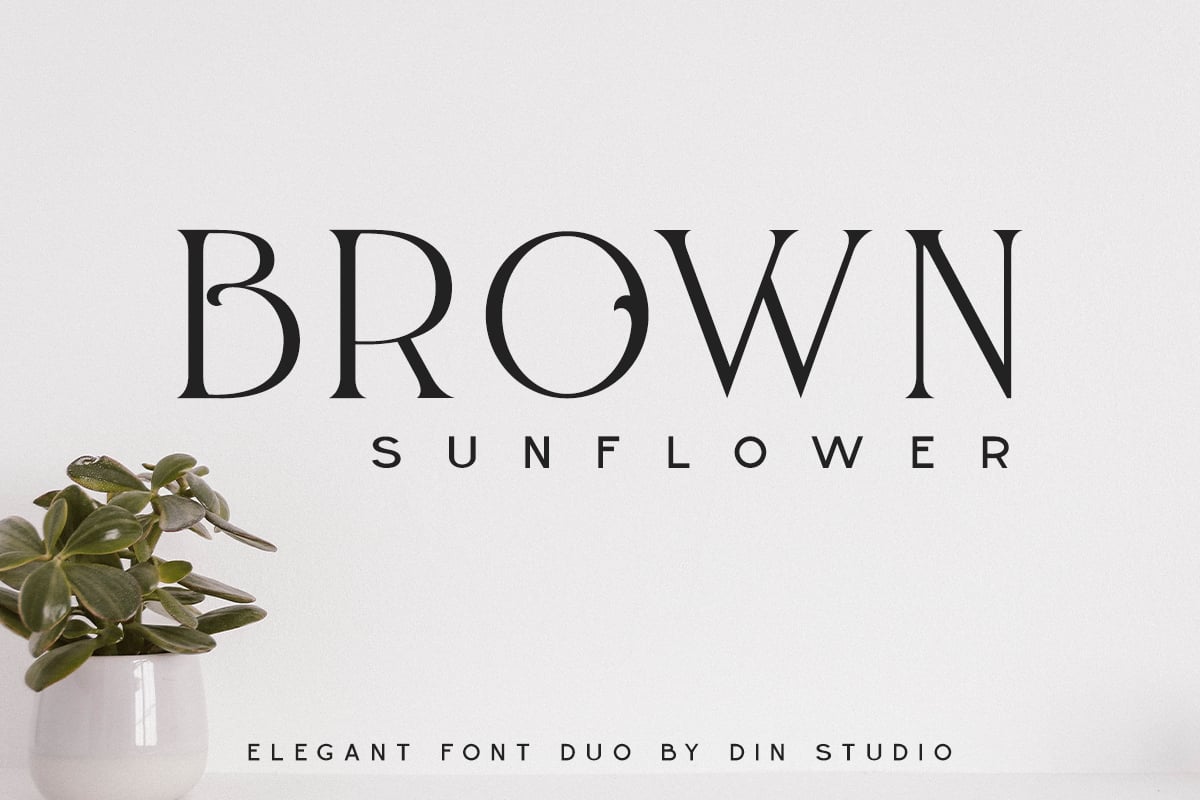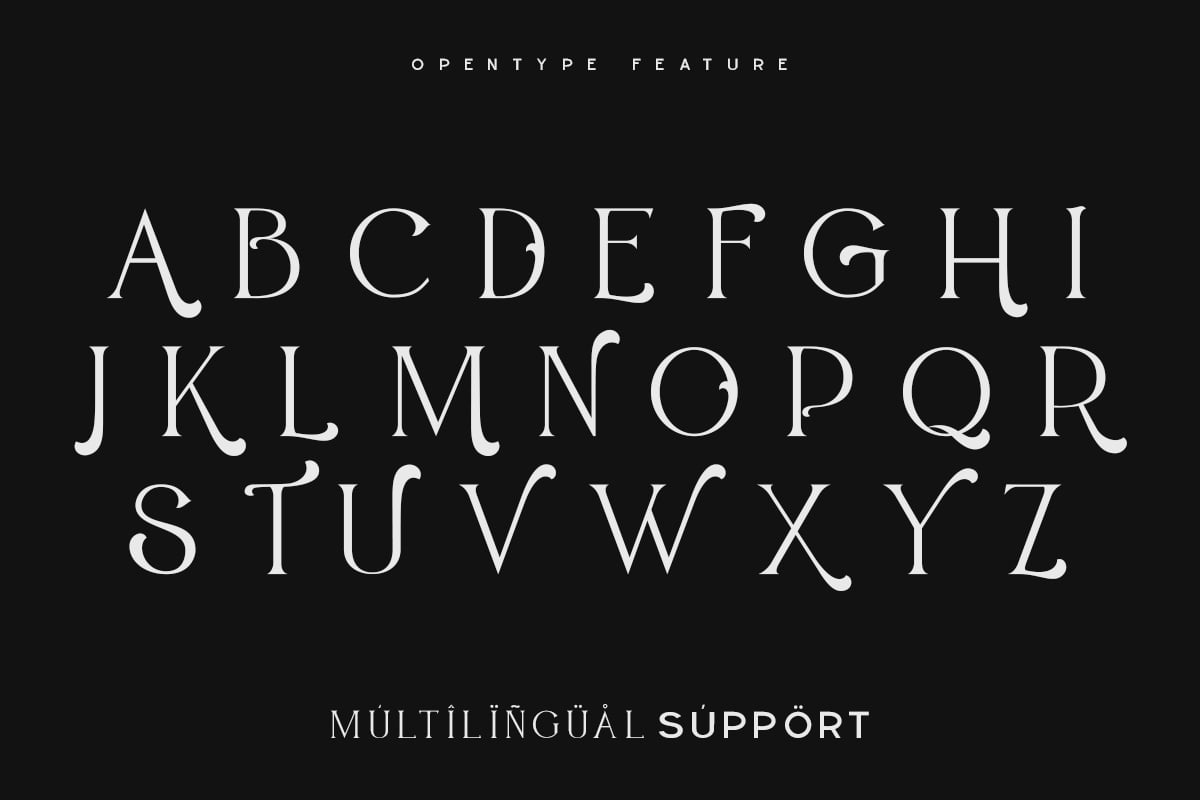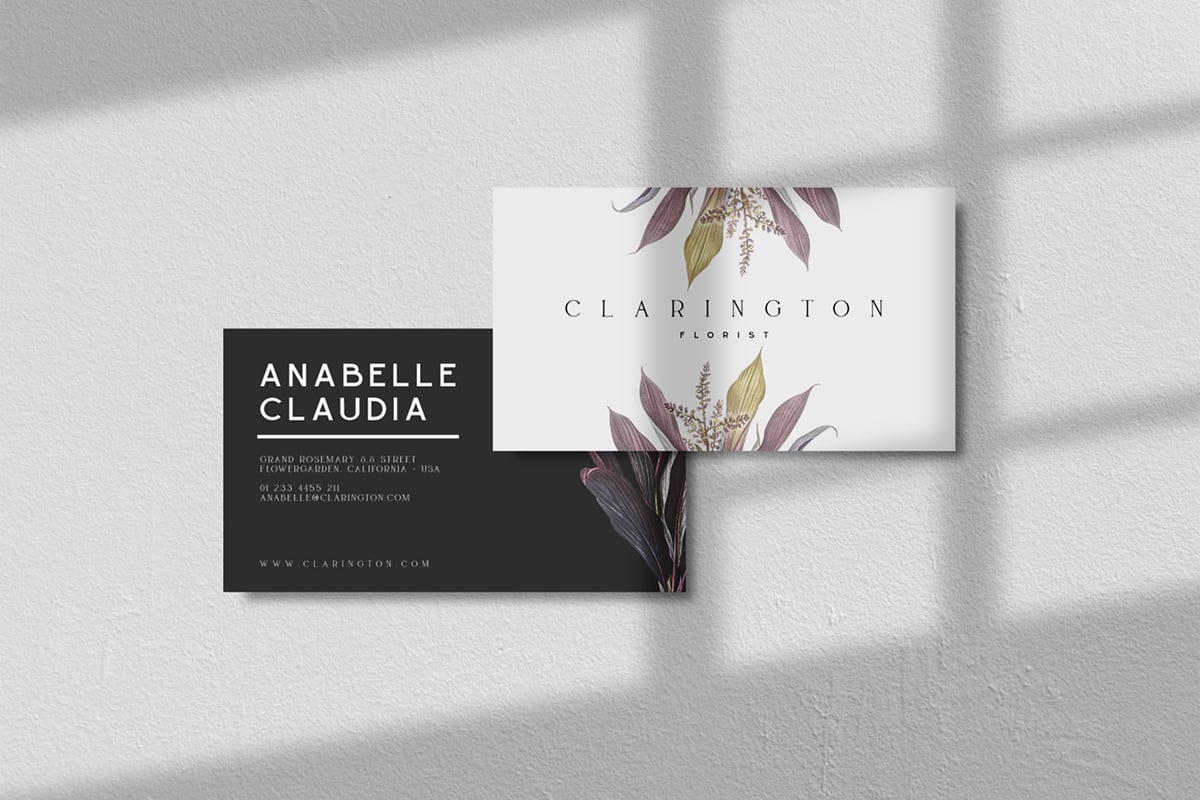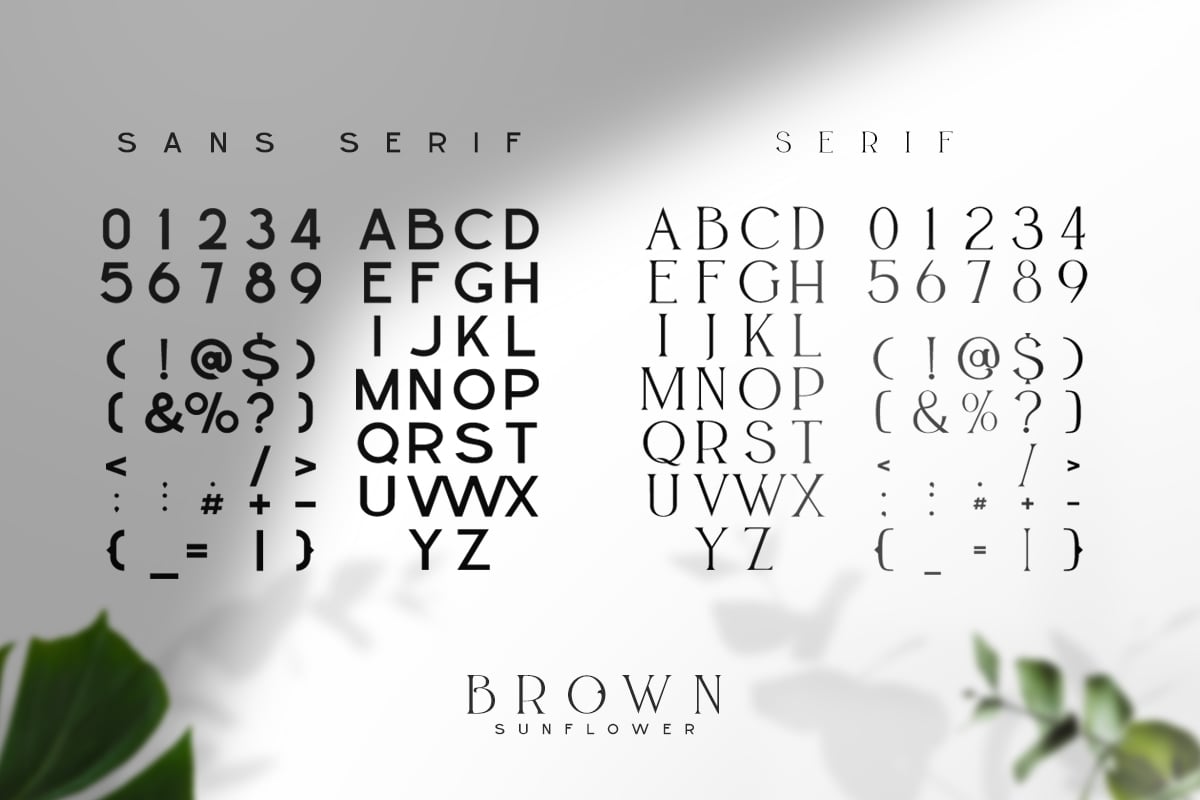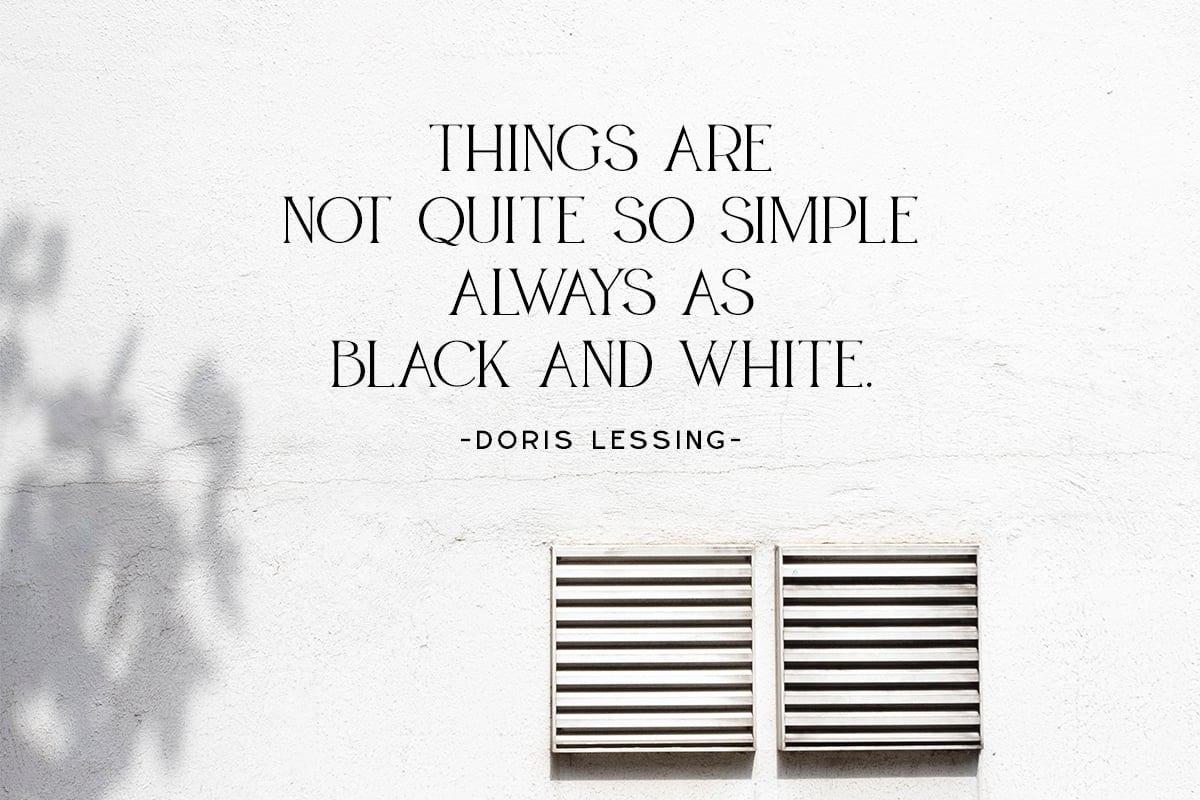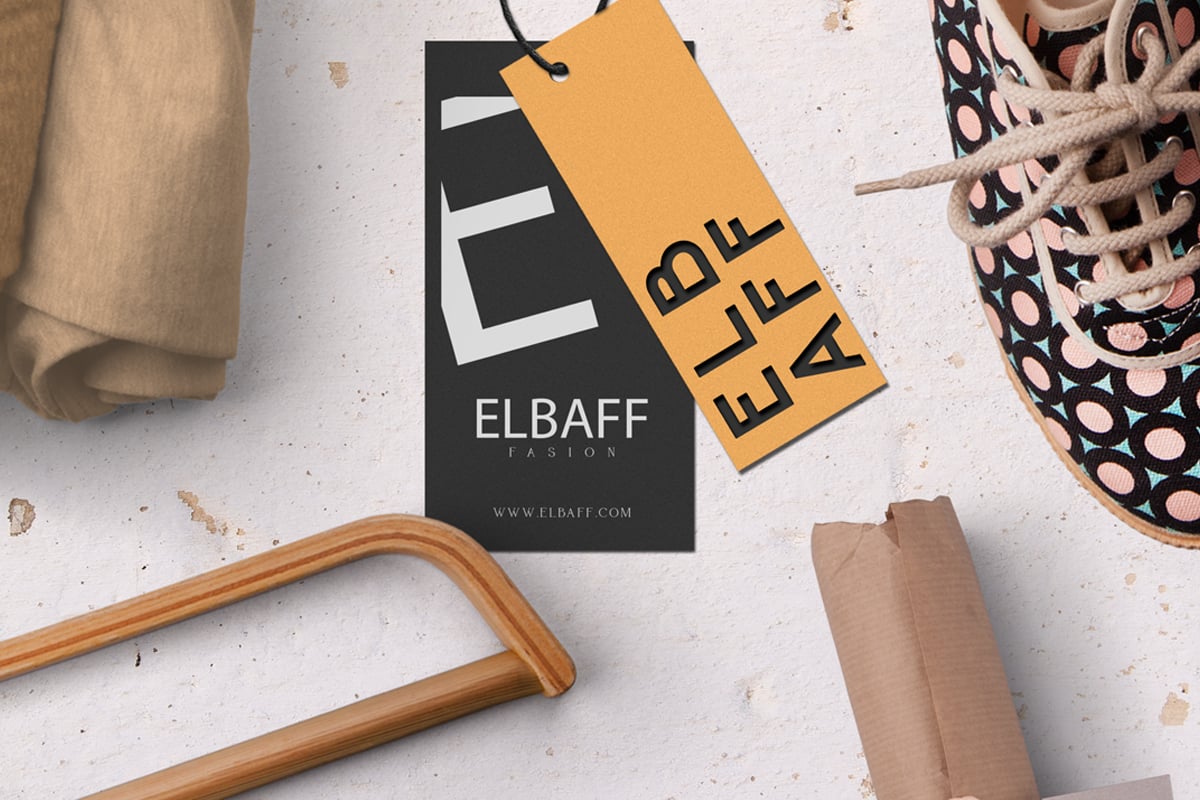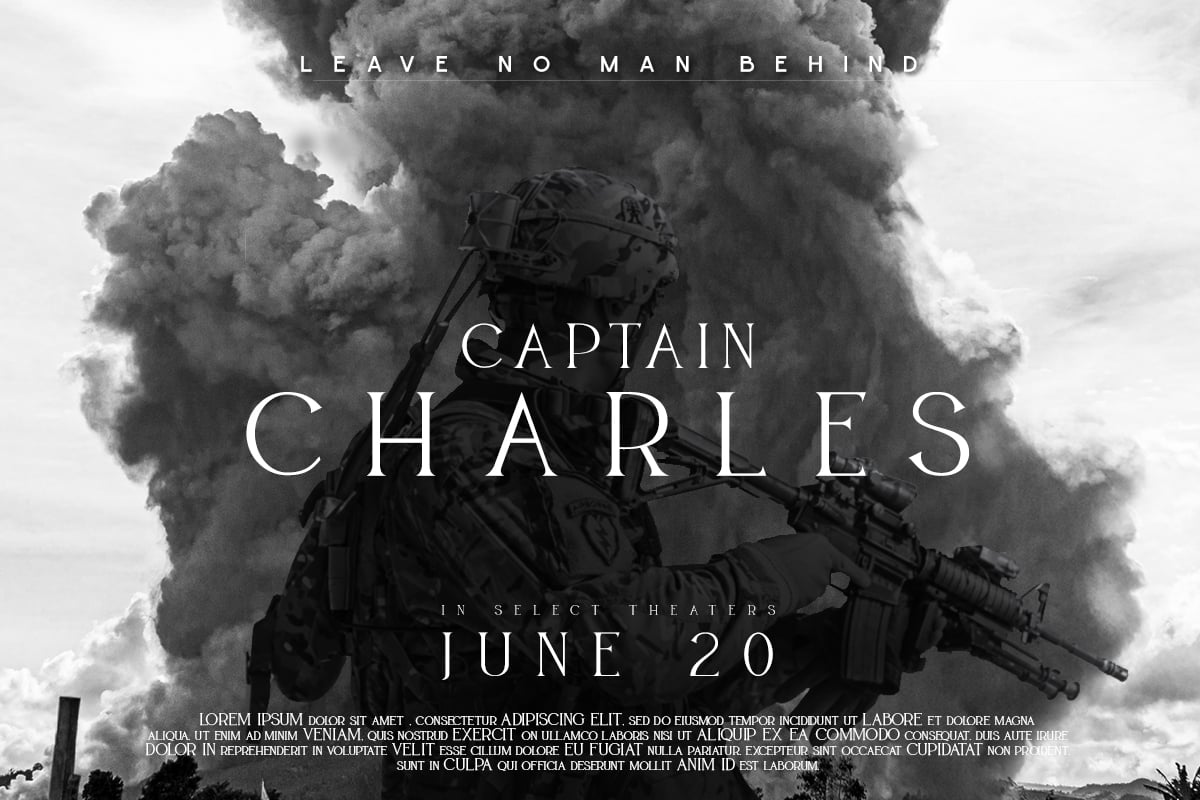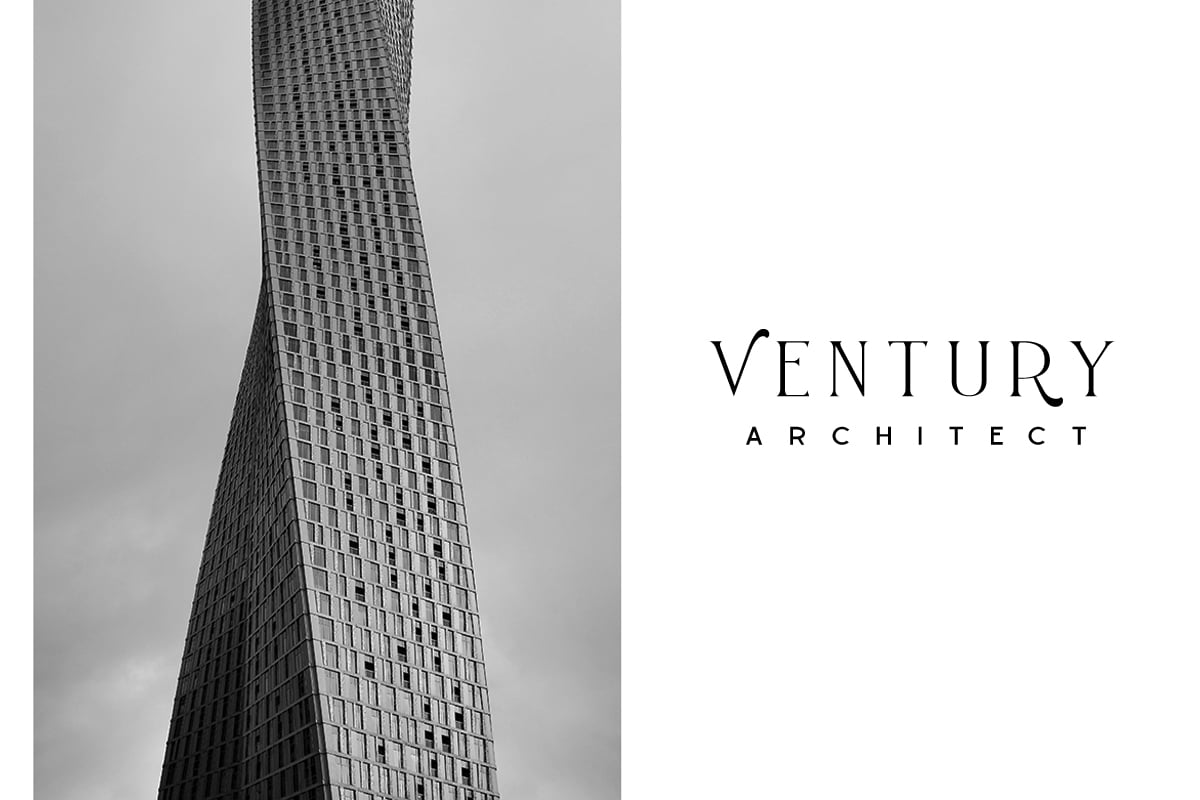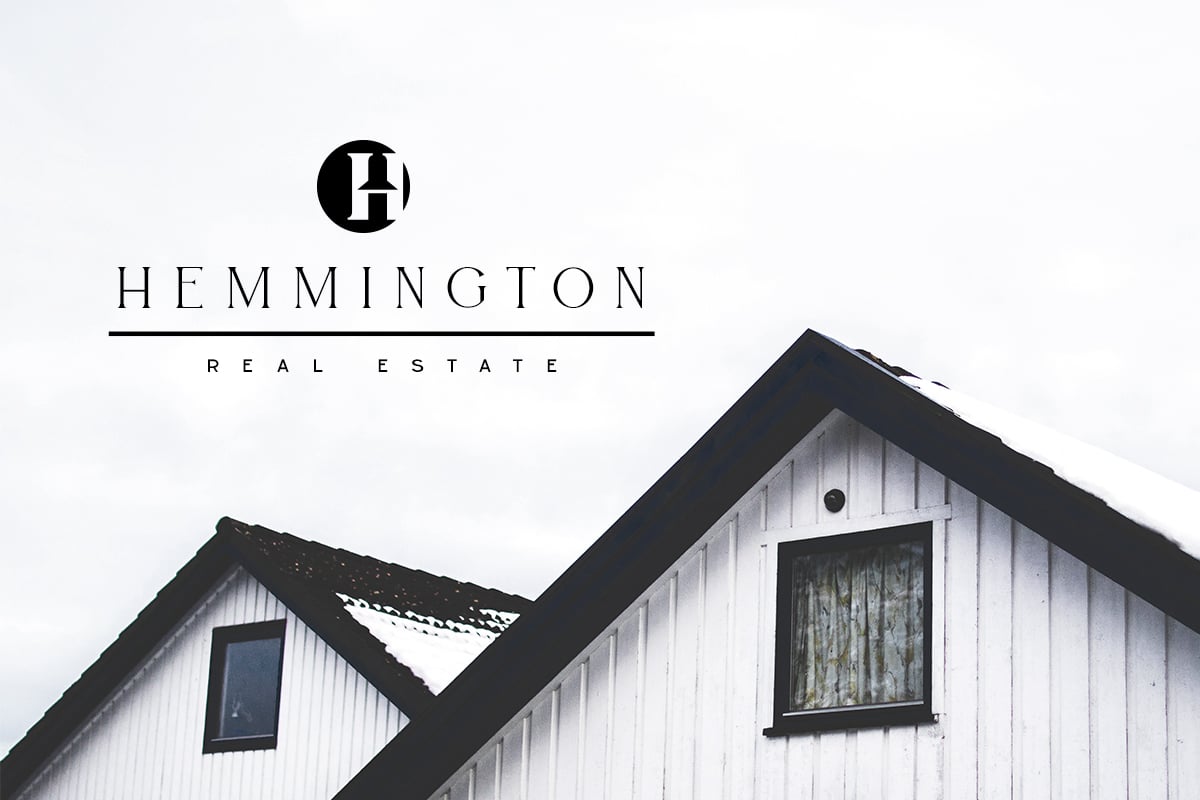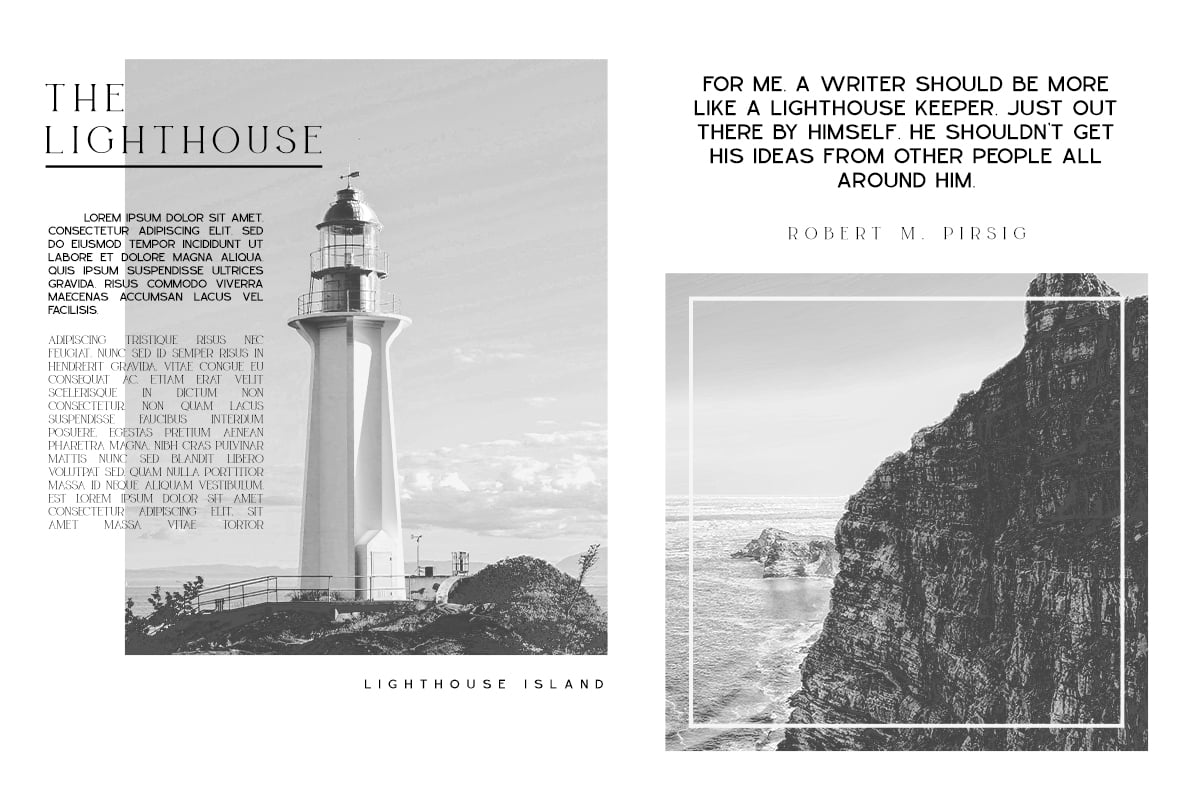
Brown Sunflower – Font Duo
Introducing Brown Sunflower Font – Font Duo. Brown Sunflower font is an elegant font. Combined from light modern serif and decorative sans serif. It will make your design more modern and more beautiful.
- Accents (Multilingual Characters)
- Many Alternates